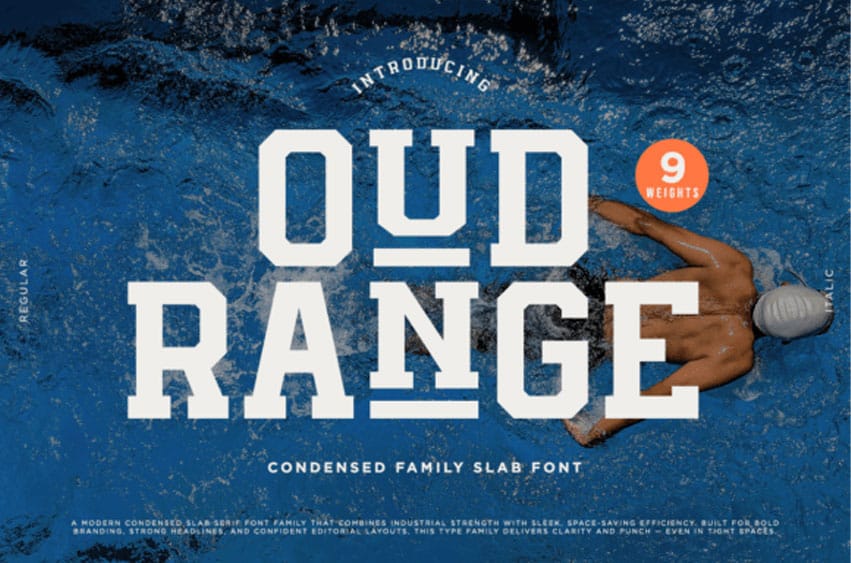
Oud Range Font
Oud Range Font Condensed Family Slab Font. Oud Range is a modern condensed slab serif font family that blends industrial power with sleek, space-saving precision. Designed for bold branding and striking headlines, this type family commands attention without sacrificing clarity.
Built for versatility, Oud Range comes with 9 weights, from light to bold italics, offering full flexibility for both digital and print design. Every letterform delivers strong geometry, crisp edges, and confident rhythm, making it perfect for editorial layouts, packaging, sports design, and dynamic logos.
Its compact structure ensures maximum impact even in tight spaces, while maintaining balance and legibility.
9 weights with matching italics
Condensed slab serif style for modern impact
Ideal for branding, headlines, posters, and packaging
Designed for clarity, strength, and visual punch
Powerful. Streamlined. Unmistakably bold — Oud Range is built to make every word stand out.